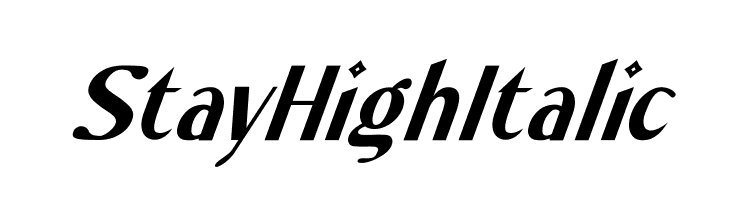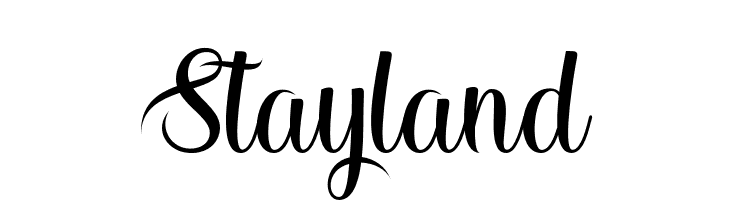
A playful, handwritten font with a casual and friendly vibe.
A clean, minimalist font with tall, narrow letterforms and consistent stroke thickness.
A bold, italicized font with a modern and dynamic style.
A bold, italic font with dynamic slanted letterforms and high contrast strokes.
An elegant, cursive font with flowing, sophisticated characters.
A bold, expressive script font with flowing, cursive letterforms.
A sophisticated script font with elegant curves and a dynamic slant.
A stylish and elegant script font with flowing, cursive strokes and decorative flourishes.
A playful, rounded font with a modern and friendly style.
A playful, inline decorative font with a modern twist.